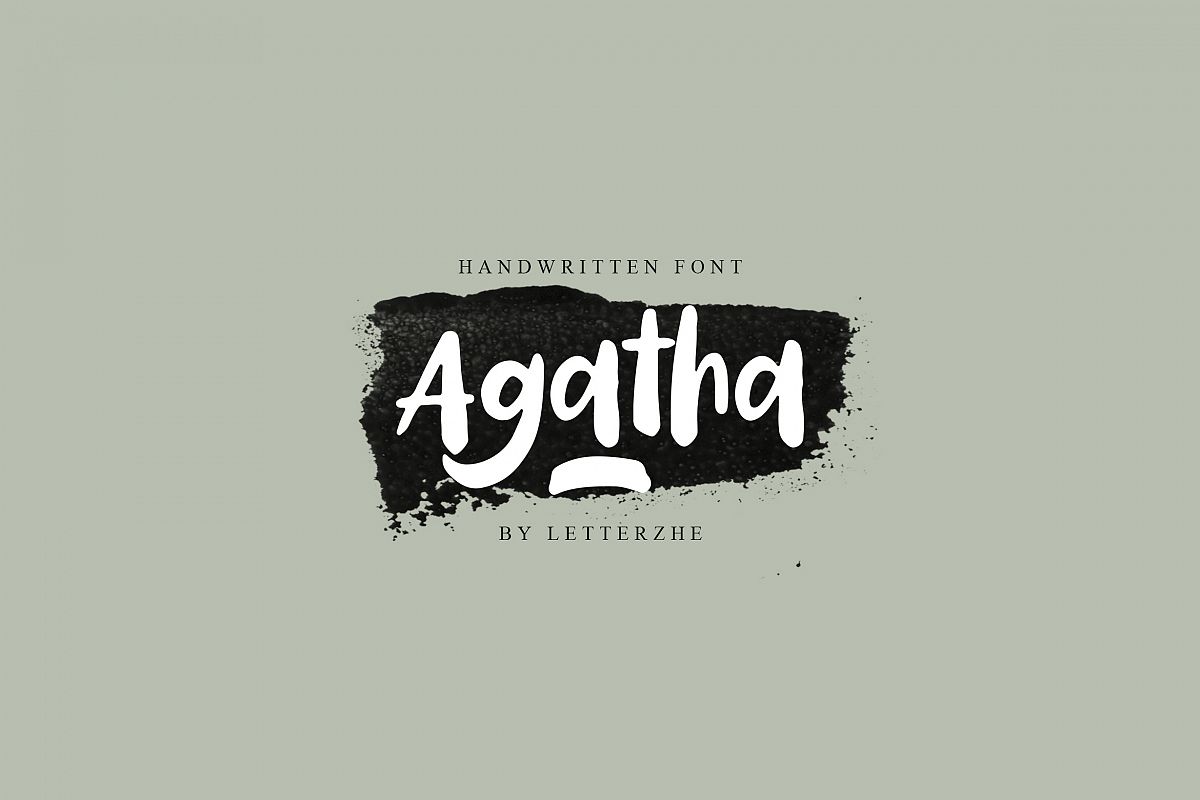
Agatha
Agatha Swashes
Agatha Alternate
Agatha
Agatha Hanwritten Font , with authentic clean brush, has a perfectly paired complimentary marker font , and a super handy set of bonus Swash. Ideal for logos, handwritten quotes, product packaging, header, poster, merchandise, social media & greeting cards.
Special features such as stylistic alternates, ligatures and swashes. Also, Agatha includes western european characters (multilingual support).